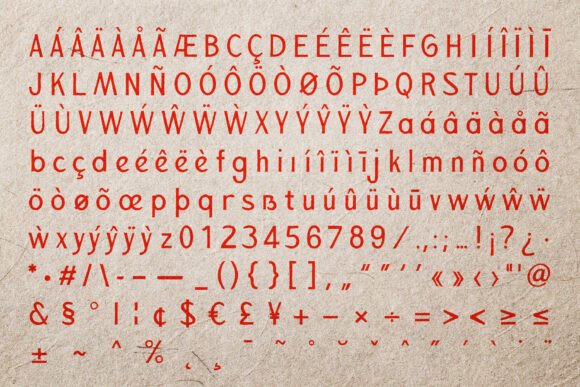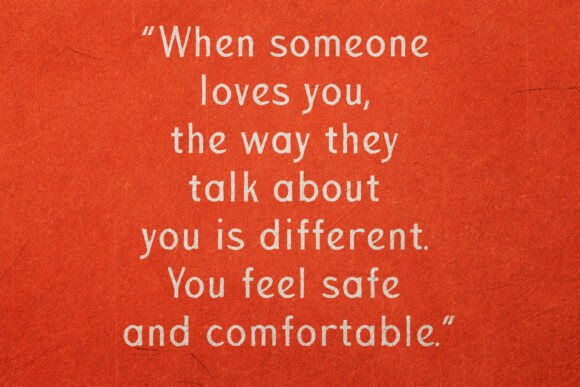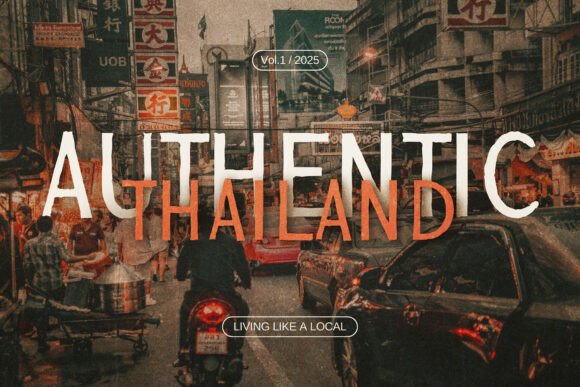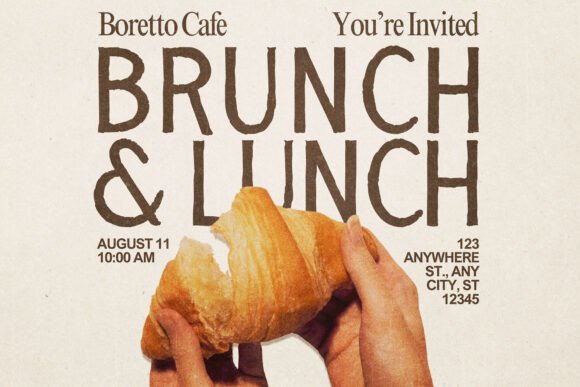
Introduction to Martein Font
Introducing Martein – Rough Sans Serif Font.
Martein is a modern and retro typeface, best used as a display for headings, logos, branding, magazines, product packaging, and invitations Martein comes with rough lines that give a vintage touch to any project.
Key Features of Martein Font